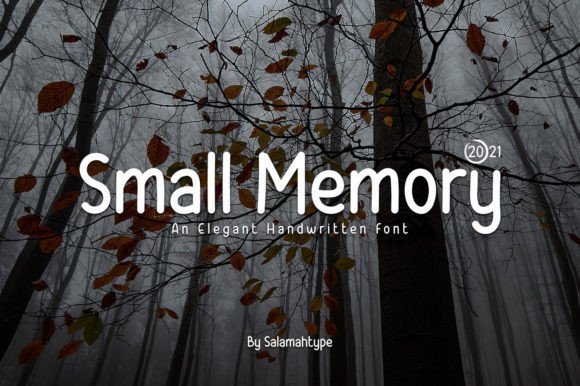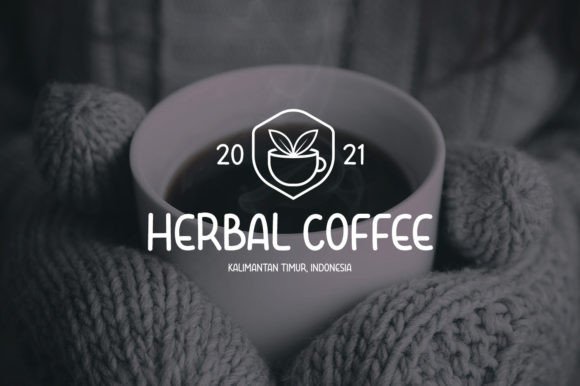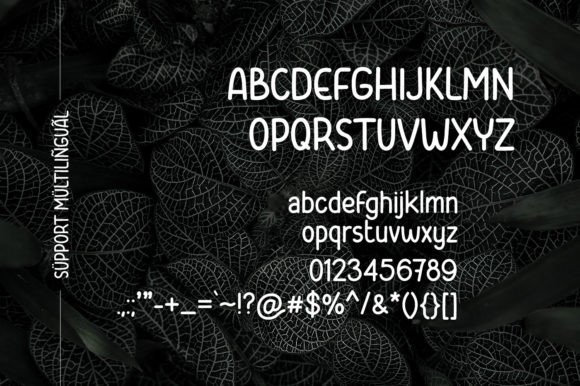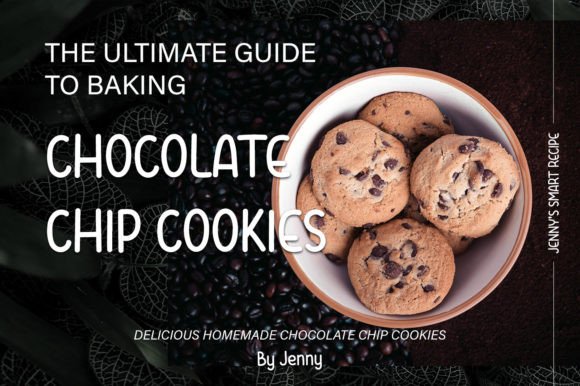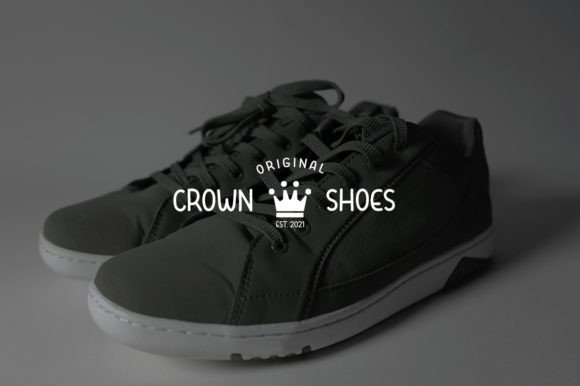
Small Memory Font
About Small Memory Font
“Small Memory” is a cute and clean handwritten font that offers versatility for a wide range of design projects. Its charming and clean appearance makes it an excellent choice for various applications, including logos, branding projects, product packaging, stationery, digital planners, e-books, magazines, posters, photography, and more.
Here are some key features and uses of “Small Memory”:
1. Logos and Branding: “Small Memory” can help create a distinctive and friendly brand identity. Its handwritten style adds a personal touch that can resonate with your audience.
2. Product Packaging: Use this font on product labels, tags, or packaging to give your products a unique and charming look.
3. Stationery: Design personalized stationery items like greeting cards, notepads, or letterheads with “Small Memory” for a delightful and handwritten feel.
4. Digital Planners and E-books: Create digital planners, e-books, or digital content with this font to add a touch of creativity and playfulness to your designs.
5. Magazines and Posters: “Small Memory” can be used for headlines, titles, or pull quotes in magazines, posters, and other editorial layouts.
6. Photography: Add captions, watermarks, or creative text overlays to your photographs using this font to enhance your visual storytelling.
Overall, “Small Memory” is a versatile and charming handwritten font that can elevate your design projects, making them more engaging and appealing. Its clean and cute style makes it suitable for a variety of creative applications, allowing you to add a personalized touch to your work.